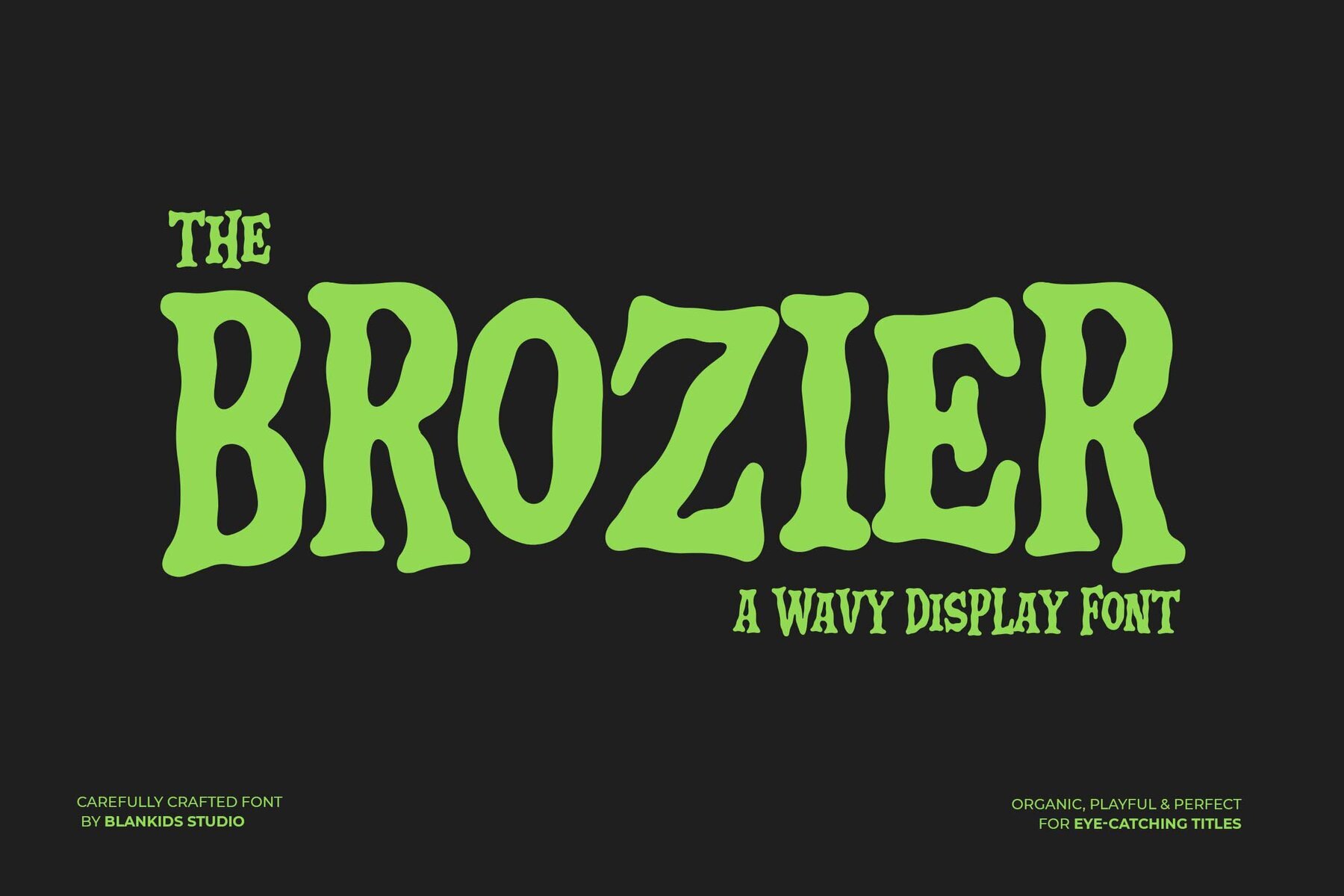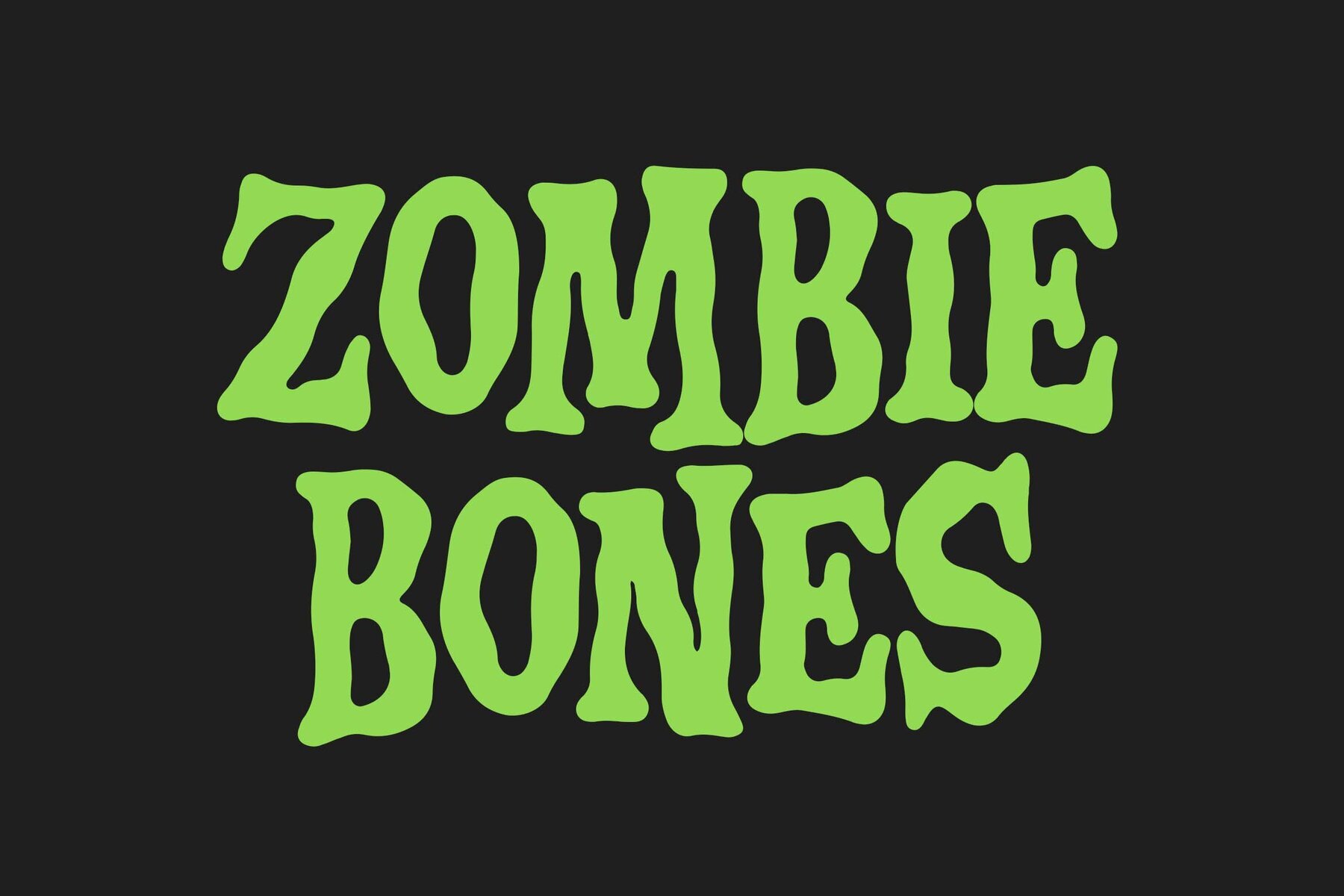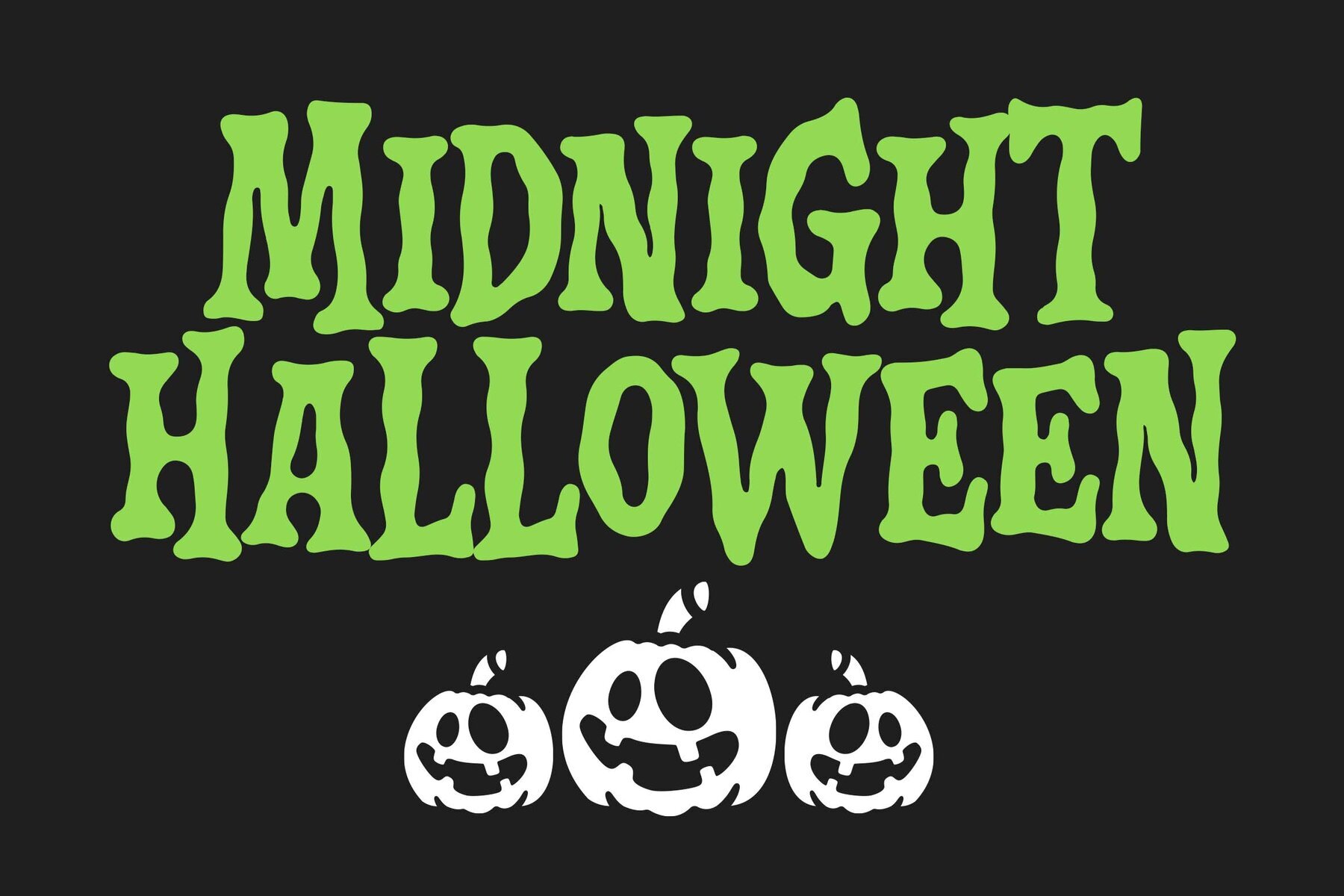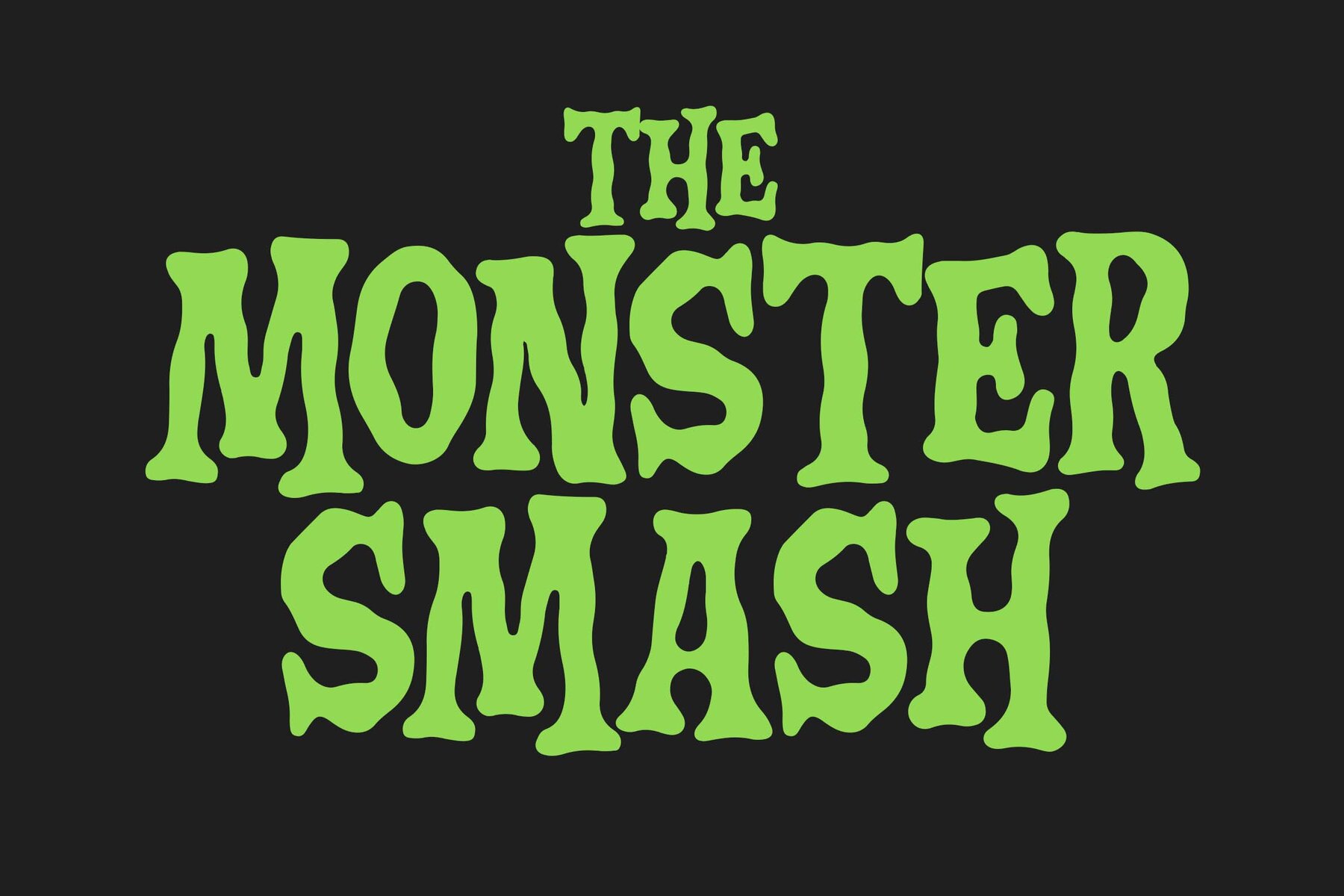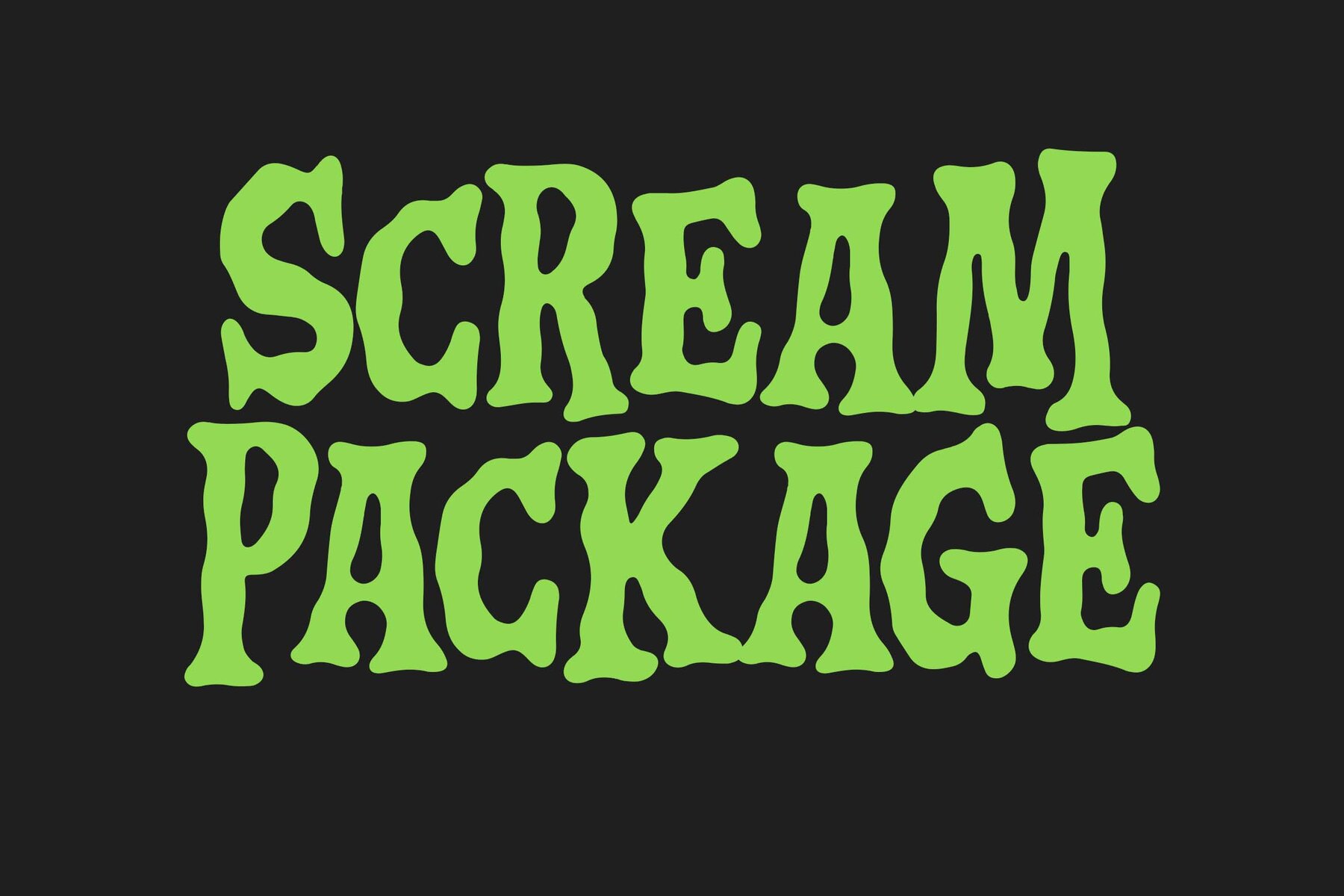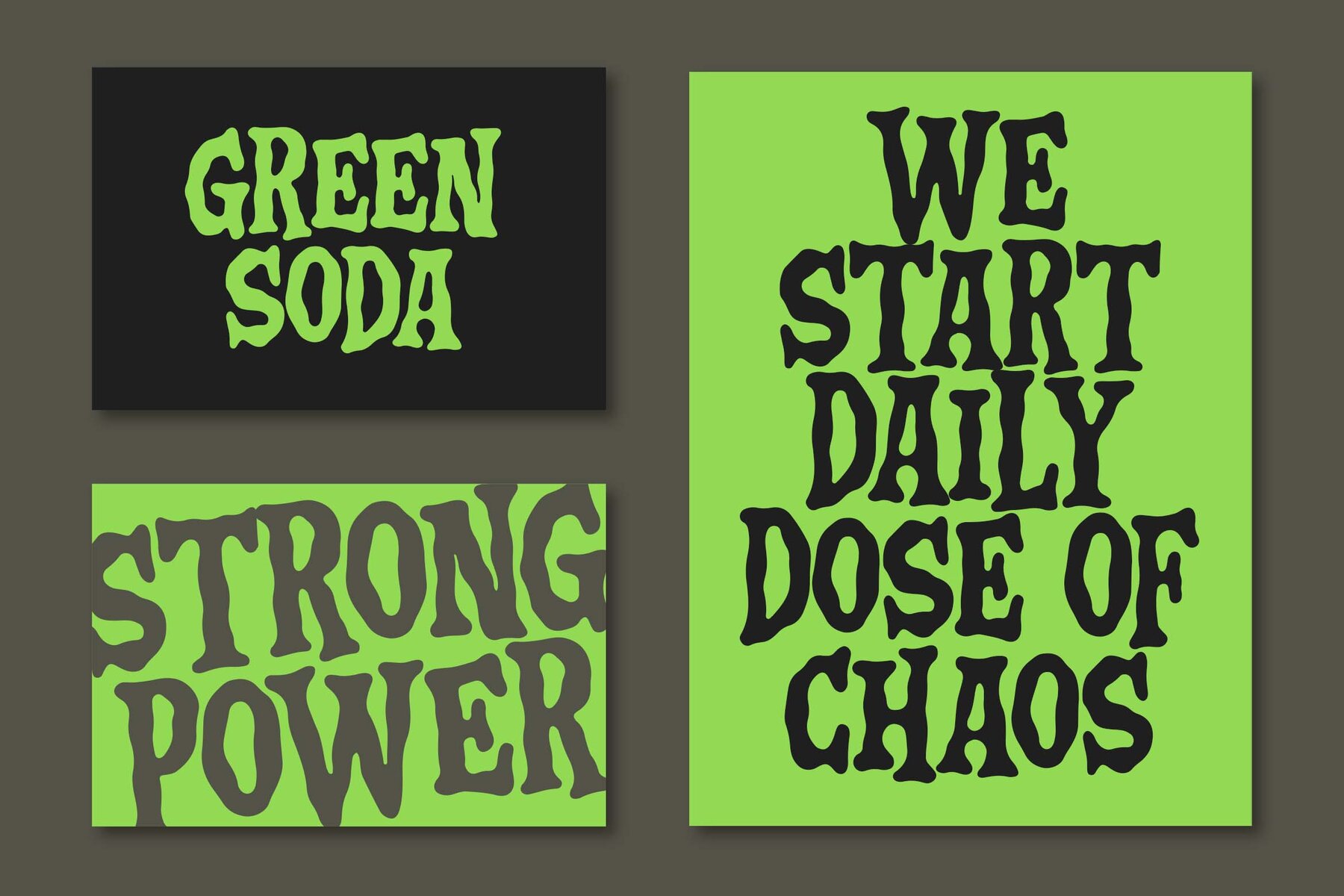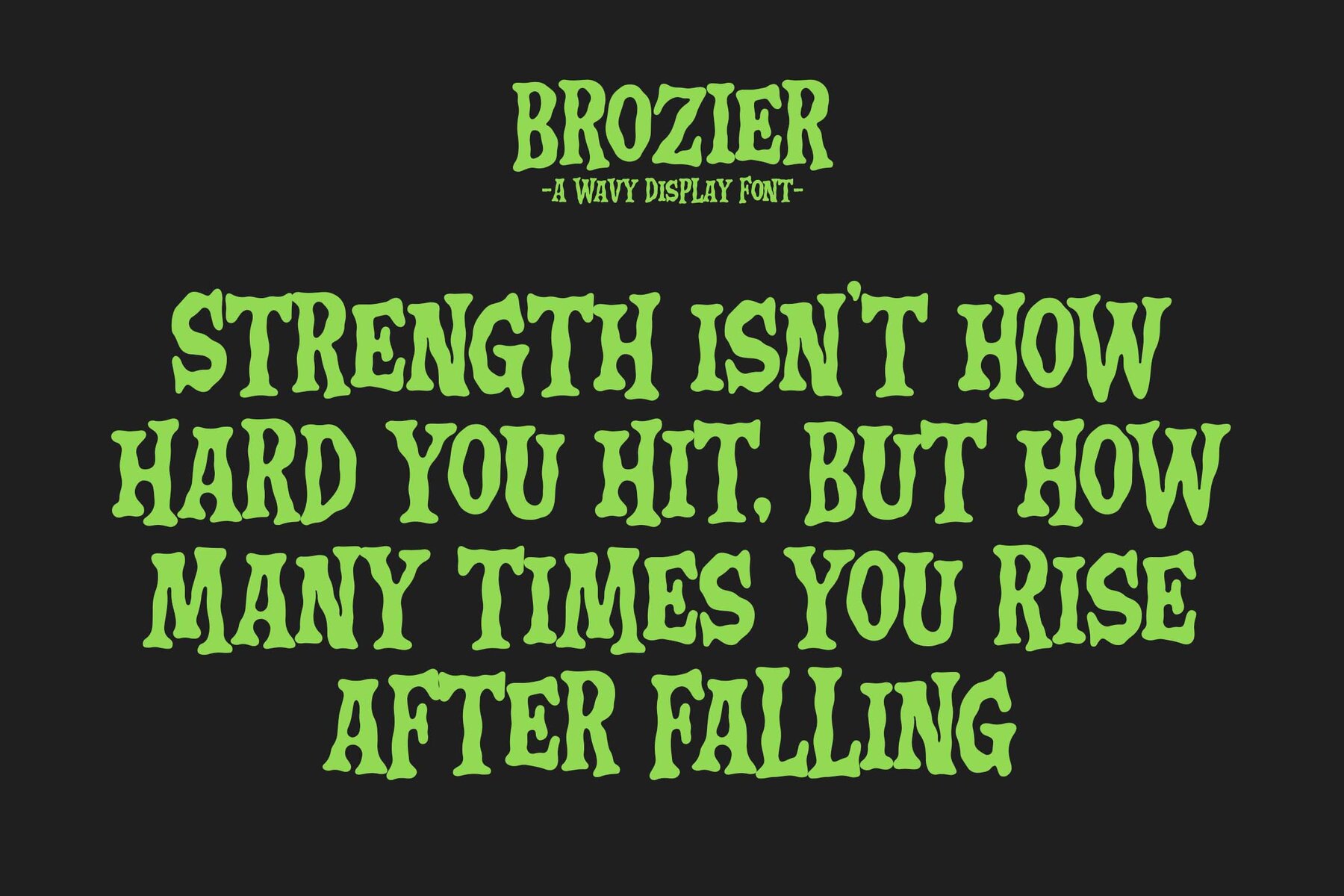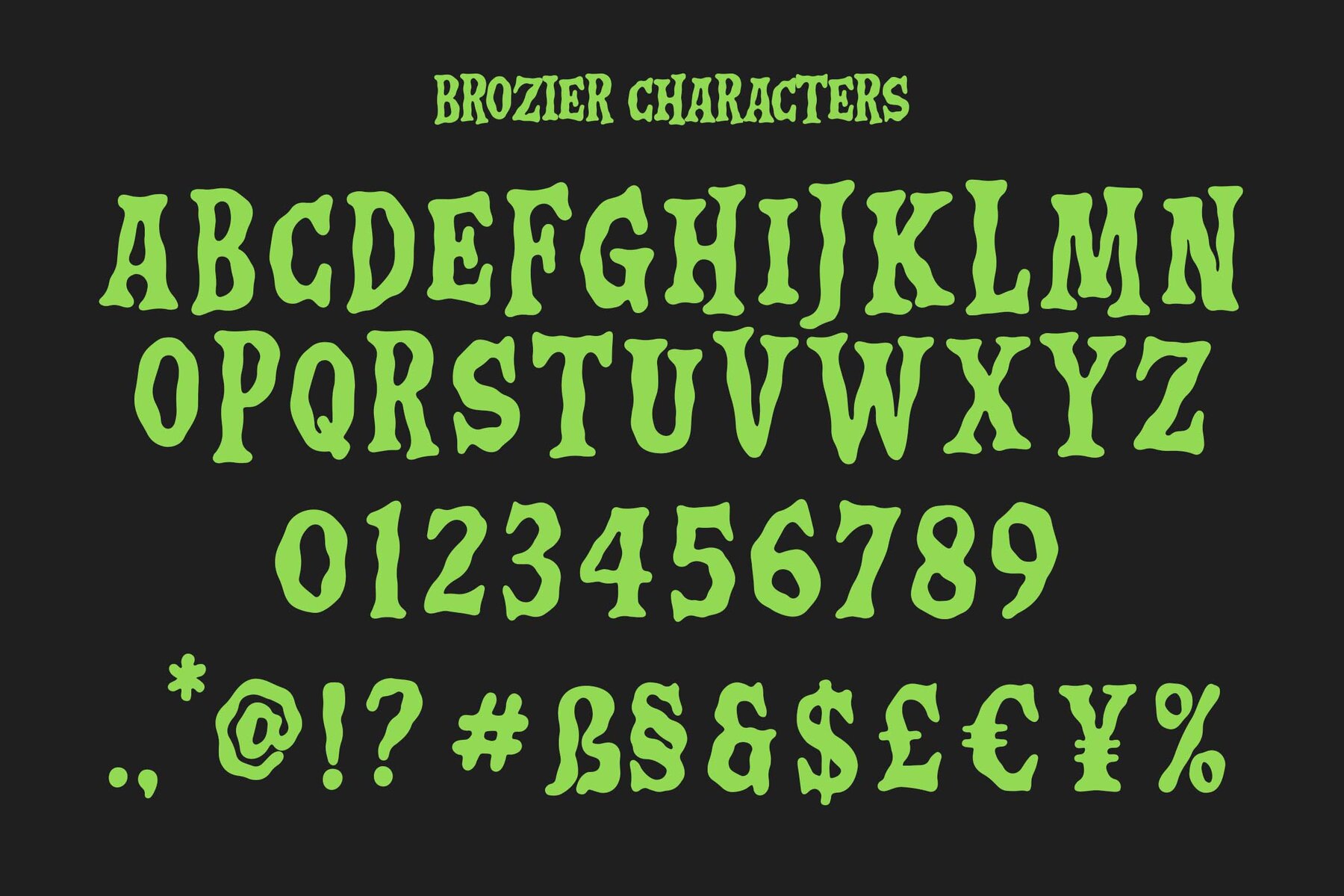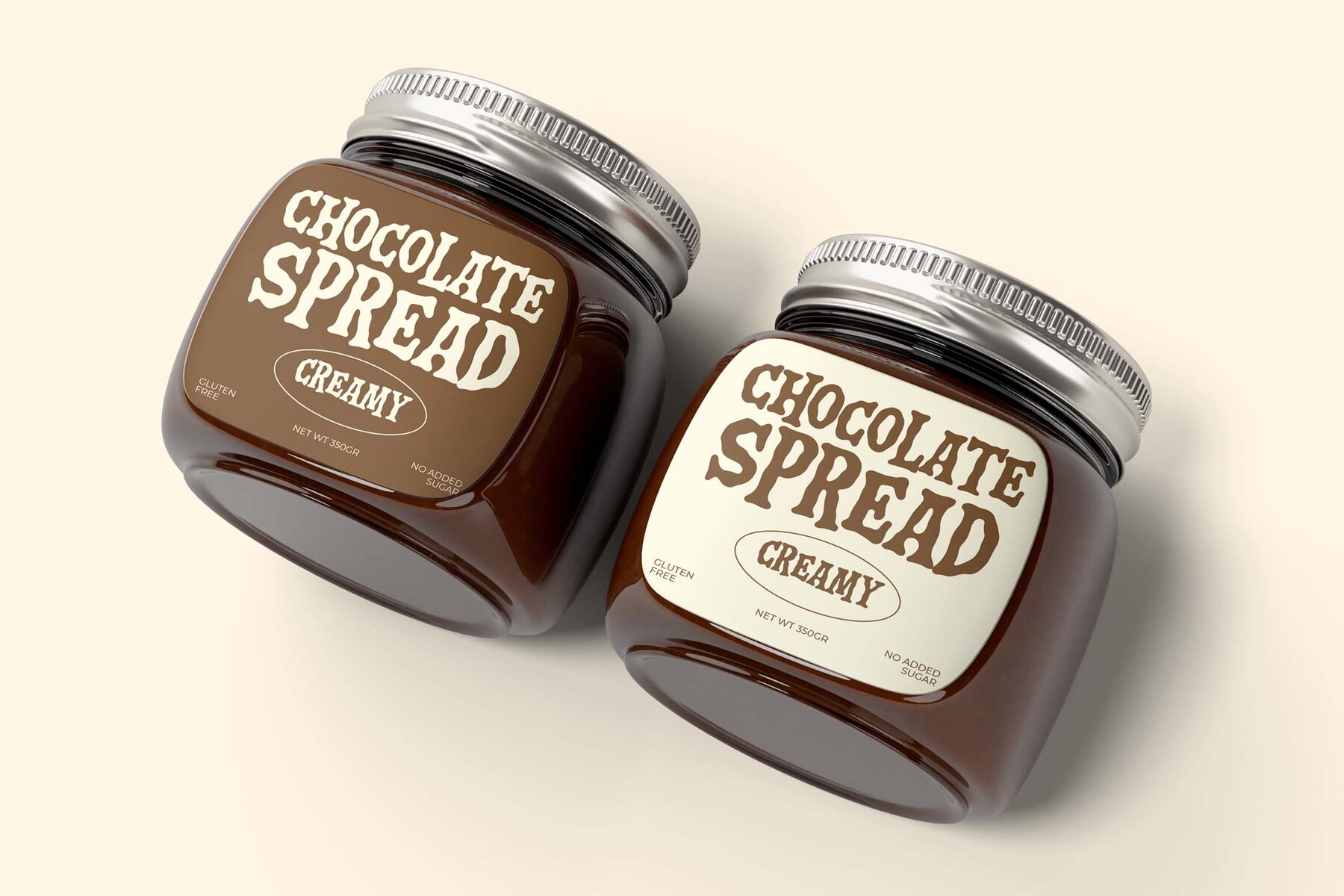
Brozier Font
Brozier Regular
Brozier is a display font that exudes a unique blend of groovy and eerie vibes. Each letter is crafted with a perfect balance of playfulness and imperfection, making it suitable for designers aiming to infuse their projects with a distinctive personality. Ideal for creators with a flair for the extraordinary, Brozier is the perfect choice for projects like Halloween posters, band logos, album covers, streetwear designs, and bold title art. It injects energy and character into any creative endeavor, ensuring your work stands out. With its distinctive liquid shapes and retro-horror mood, Brozier brings vibrancy to all your designs, transforming words into a wild and wonderfully stylish statement.Brozier: A Wavy Display Font with Attitude